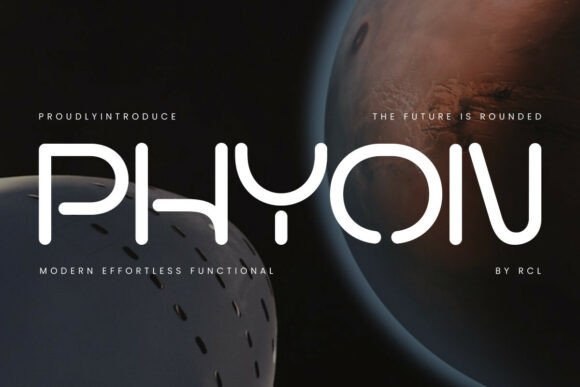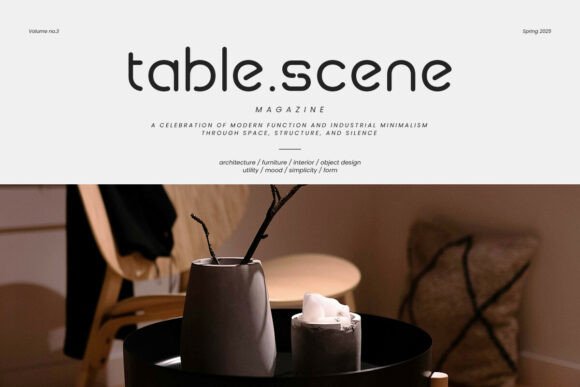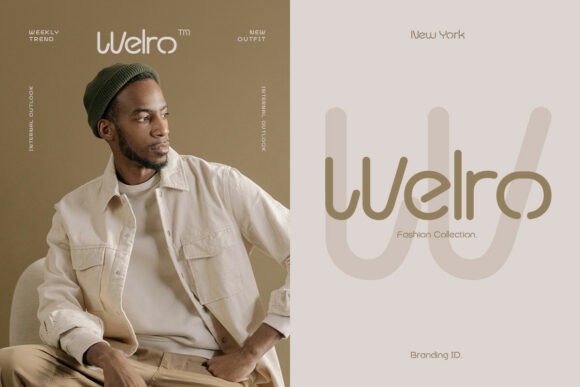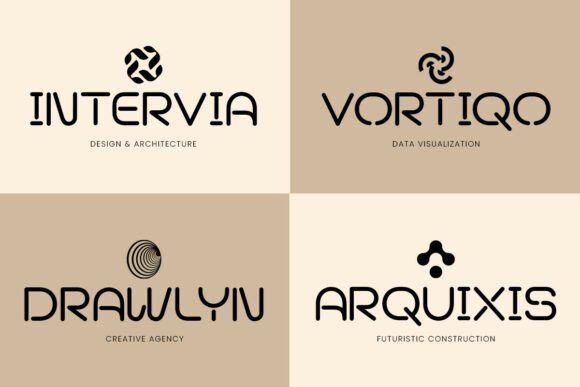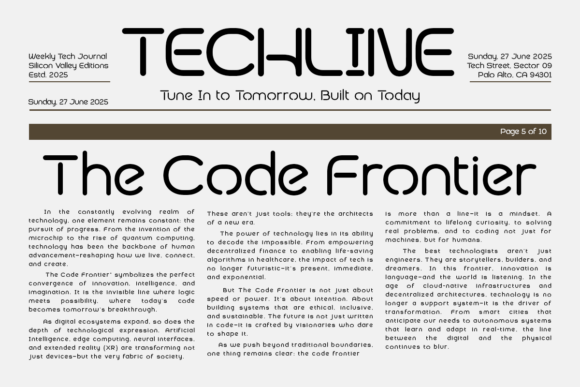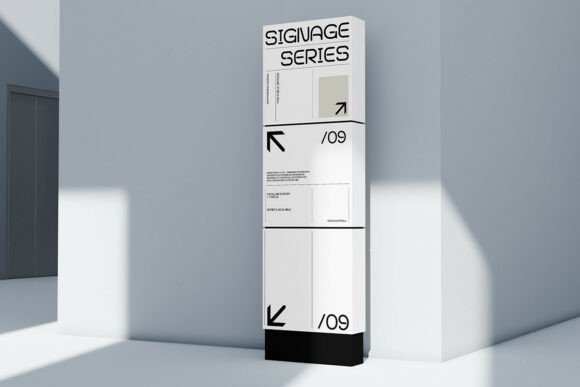
Introduction to Phyon Font
As a designer, have you ever found yourself stuck in a creative rut, searching for the perfect font to bring your futuristic vision to life? I know I have. That’s why I’m excited to introduce you to Phyon Font – a game-changing typeface that’s about to revolutionize the way we think about digital design.
Phyon Font is more than just a font – it’s a design resource that embodies the spirit of innovation and progress. With its sleek geometry and modern curves, Phyon Font is the perfect choice for designers who want to create high-quality, visually stunning projects that stand out in a crowded digital landscape.
Whether you’re working on a UI/UX project, designing a futuristic poster, or creating a sci-fi graphic, Phyon Font is the ideal choice. And the best part? It’s available for free download, making it an invaluable resource for designers of all levels.
Key Features of Phyon Font
- High-quality design: Phyon Font is a premium font designed for creative projects, offering a unique and stylish look.
- Transparent background: Phyon Font comes with a transparent background, allowing for easy integration with any design or image.
- High-resolution design: Phyon Font is designed at 300 DPI, making it ideal for print and digital applications.
- Perfect for creative projects: This font is ideal for use in logos, branding, packaging, and other design projects where a unique and stylish look is required.
Honest Review: Phyon Font
As a designer, I’m always on the lookout for high-quality design resources that can elevate my creative projects. Recently, I had the chance to try out the Phyon Font, and I must say it’s been a game-changer for my latest design endeavors.
What works well is the Phyon Font’s sleek and modern aesthetic, which is perfect for any design project that requires a touch of sophistication. The font is available for free download, which is a huge plus for designers on a budget. Plus, the transparent background option allows for seamless integration with any design element.
- ✨ Transparent background option for easy integration
However, I did encounter some limitations. The Phyon Font’s font size options are limited, which can be restrictive for designers who require a wide range of font sizes for their projects. Additionally, the font may not be compatible with older design software, which can be a drawback for designers working with outdated tools.
Overall, I’m impressed with the Phyon Font’s potential and would highly recommend it to designers looking for a high-quality design resource. With a few tweaks to address the limitations, I have no doubt that this font will become a go-to choice for designers worldwide.
Tips for Getting the Most Out of Phyon Font
Phyon Font is a high-quality font that can add a professional touch to your designs. To get the most out of it, use it with a transparent background to create a seamless design. Experiment with different font sizes and styles to achieve the desired effect. You can also use Phyon Font as a design resource for creative projects, such as posters, brochures, and business cards.
Common Use Cases for Phyon Font
Phyon Font is a versatile font that can be used in a variety of creative projects. Some common use cases include: creating business cards and brochures, designing posters and flyers, and adding a touch of elegance to presentations and documents. With its high-quality design and transparent background, Phyon Font is a valuable design resource for any creative project.